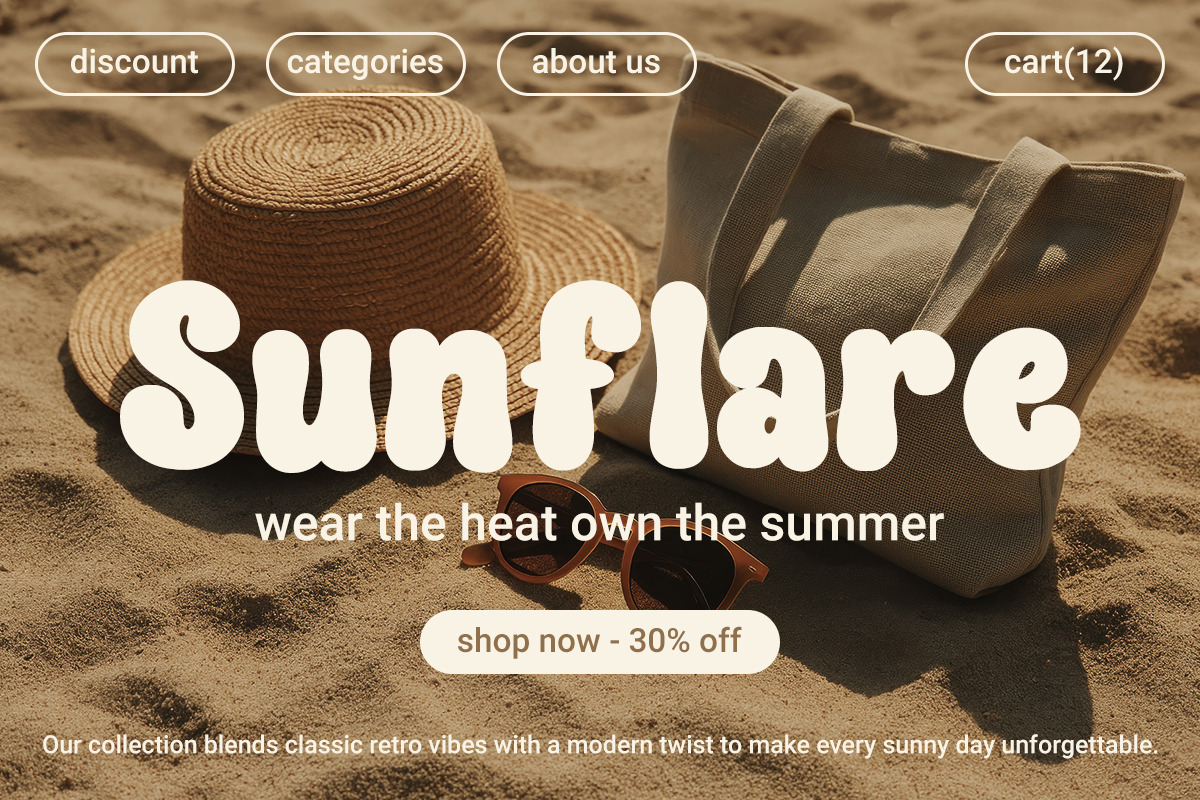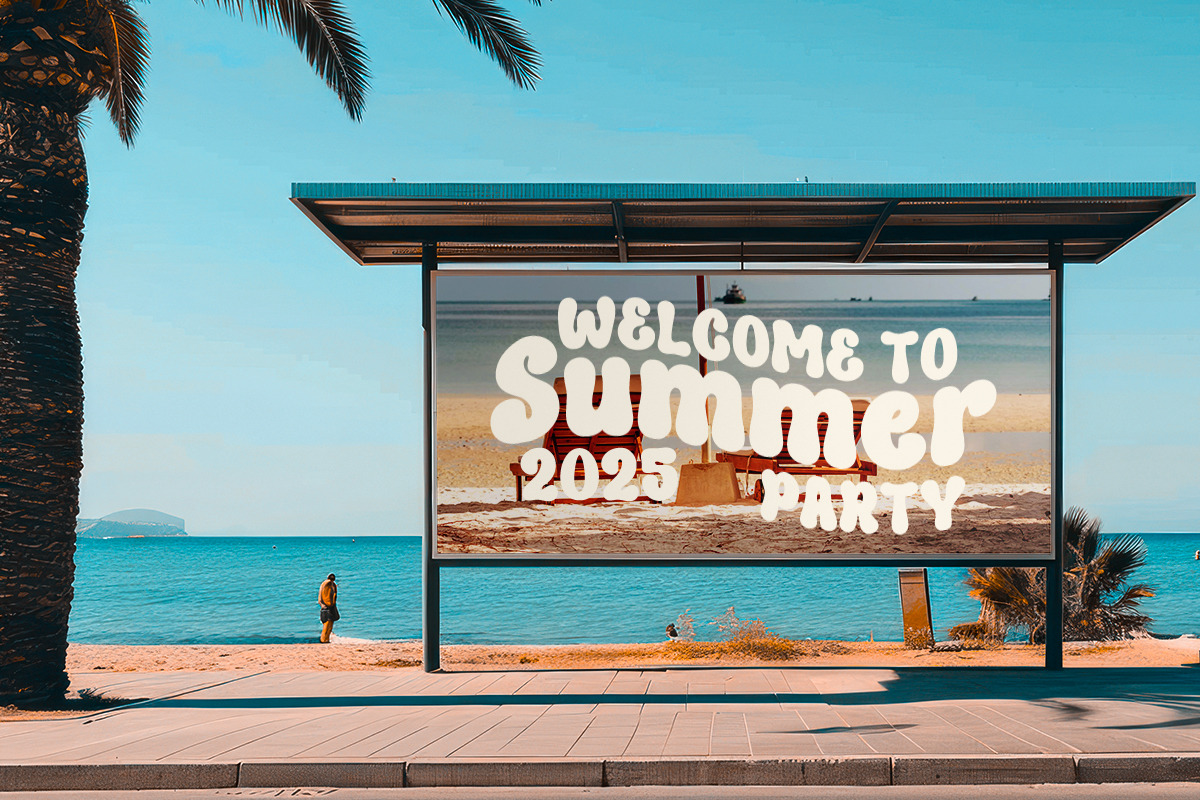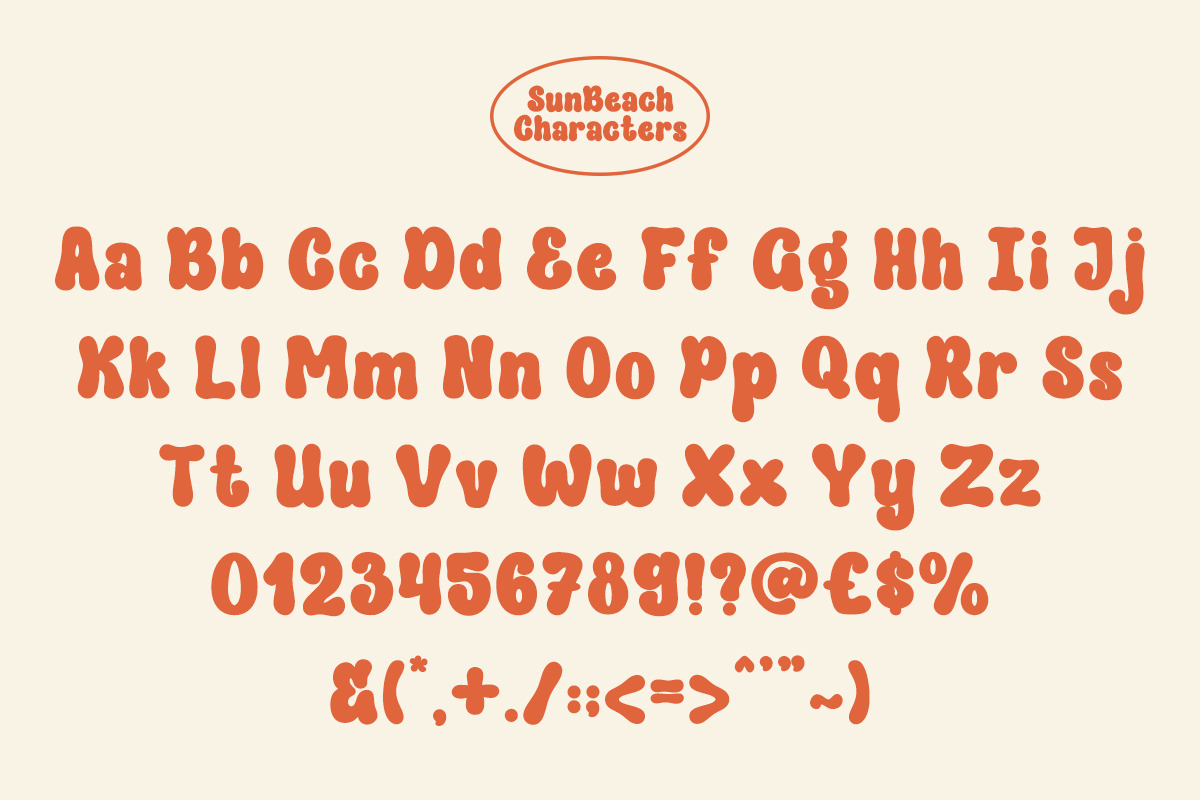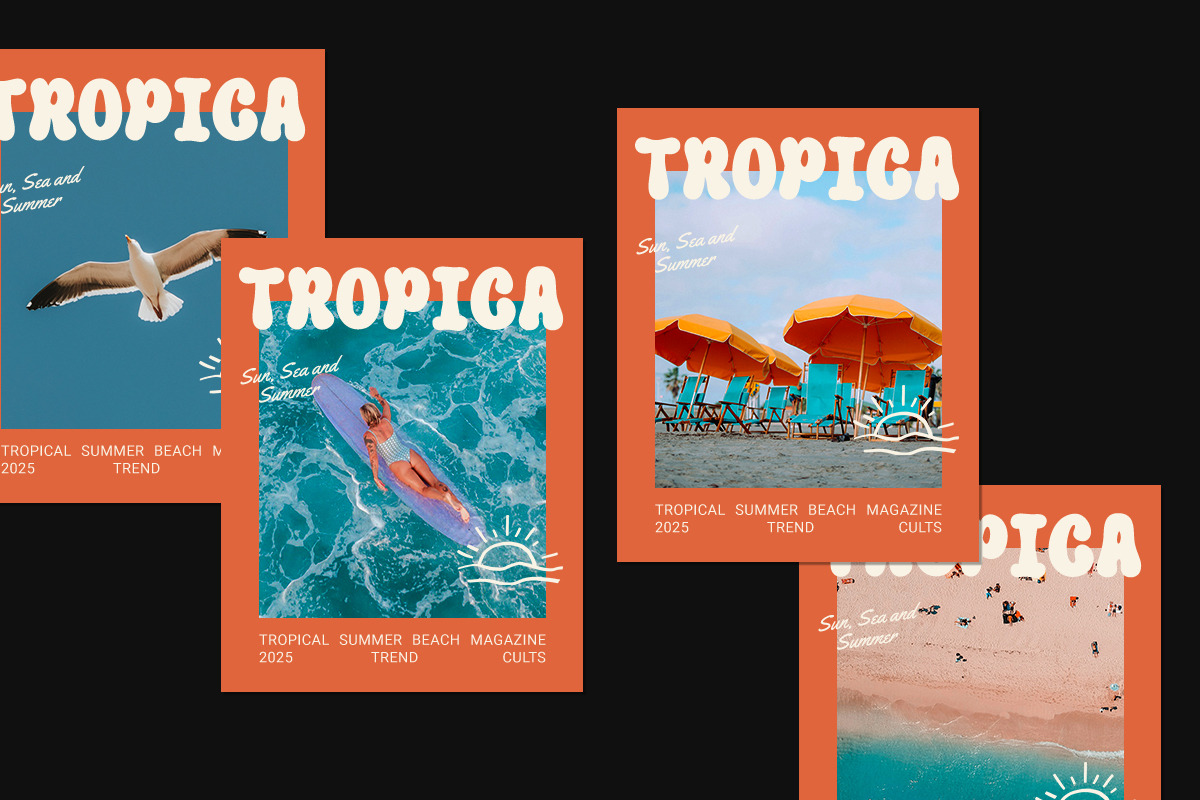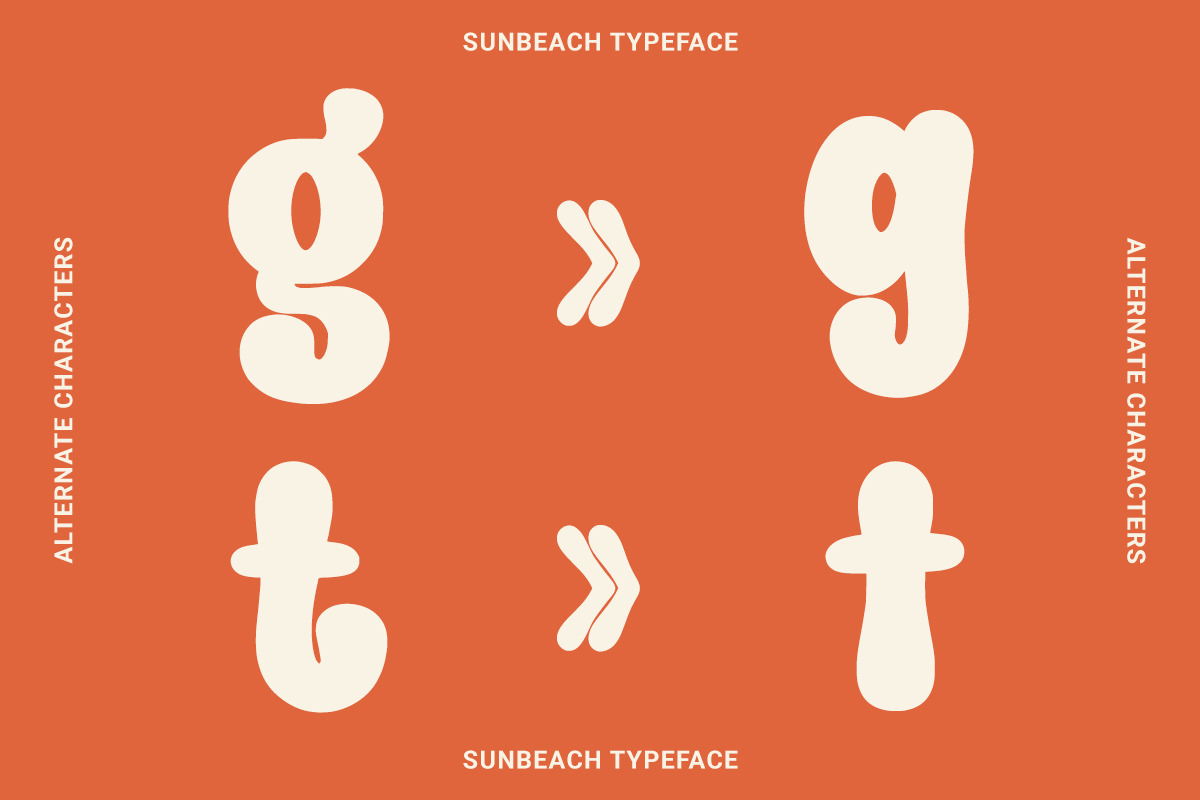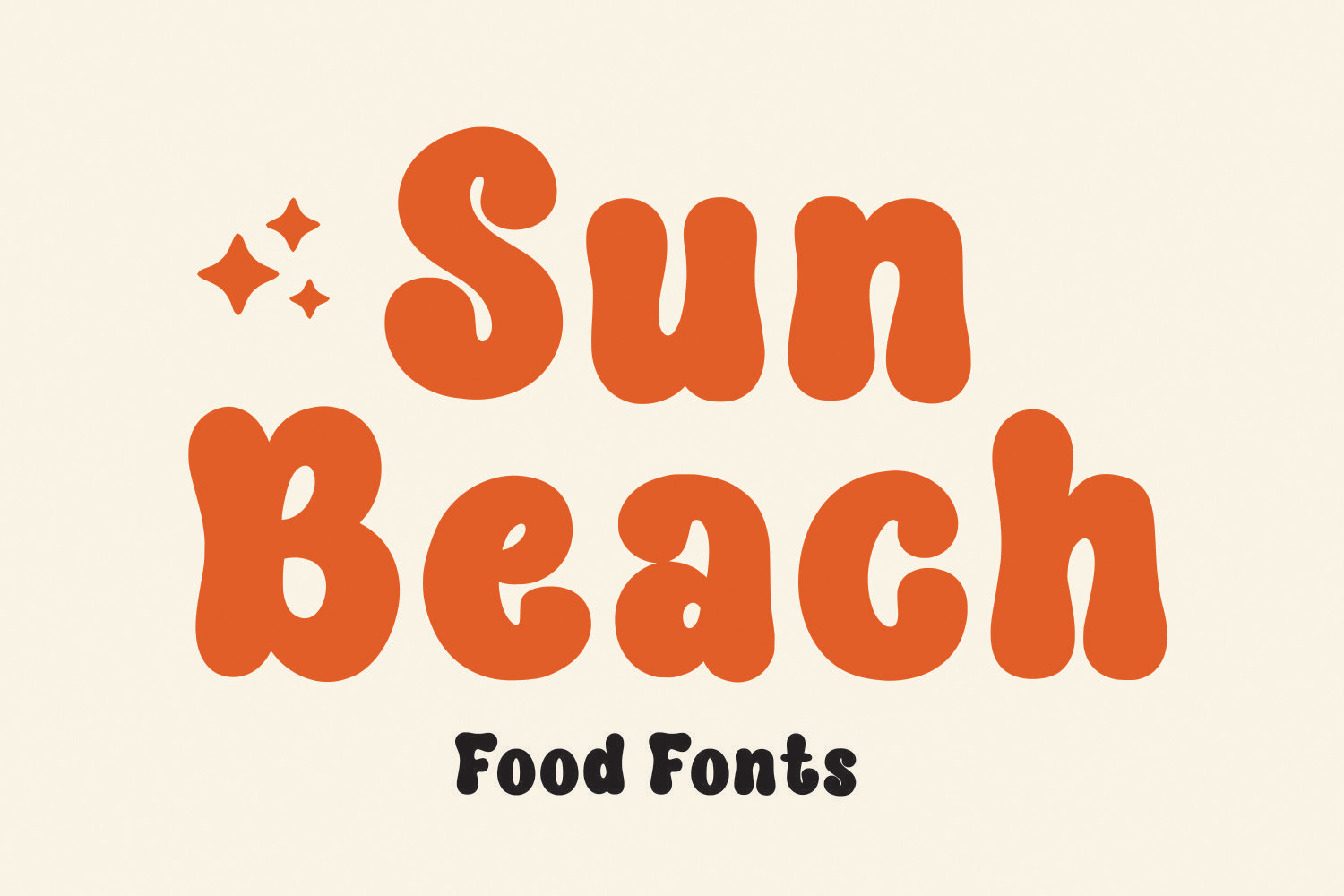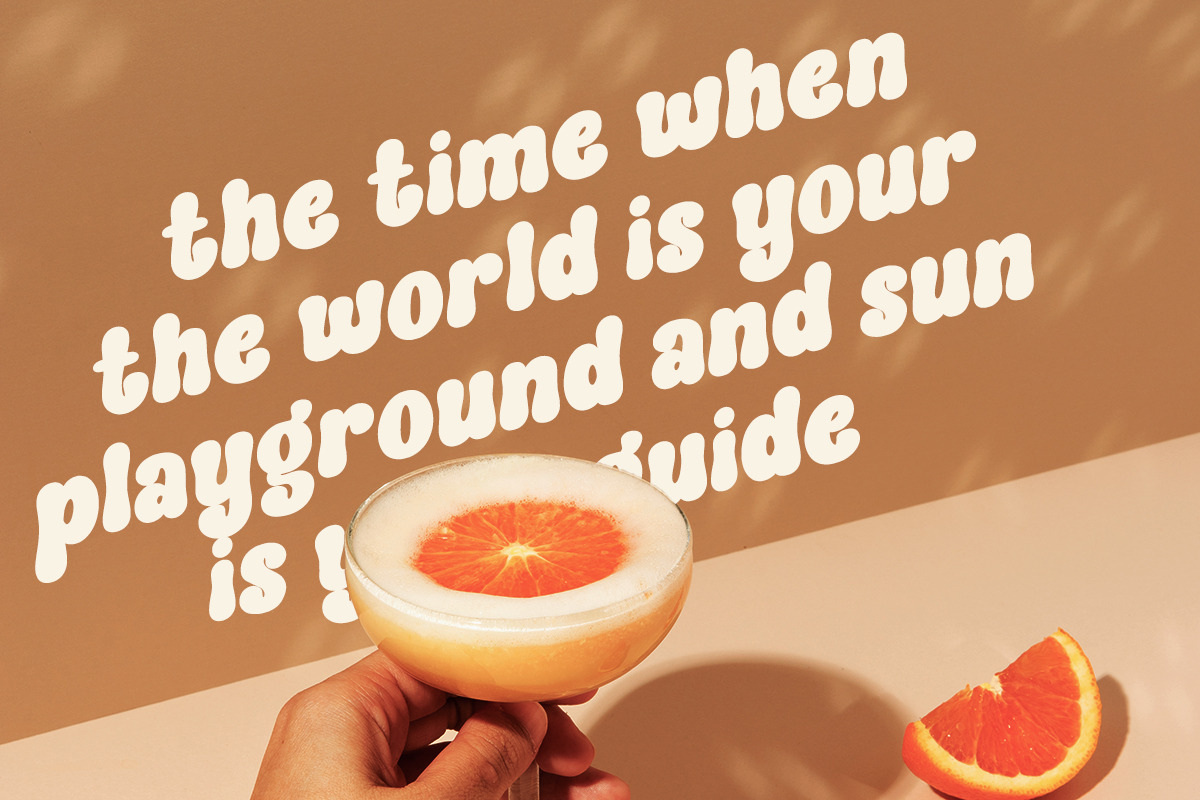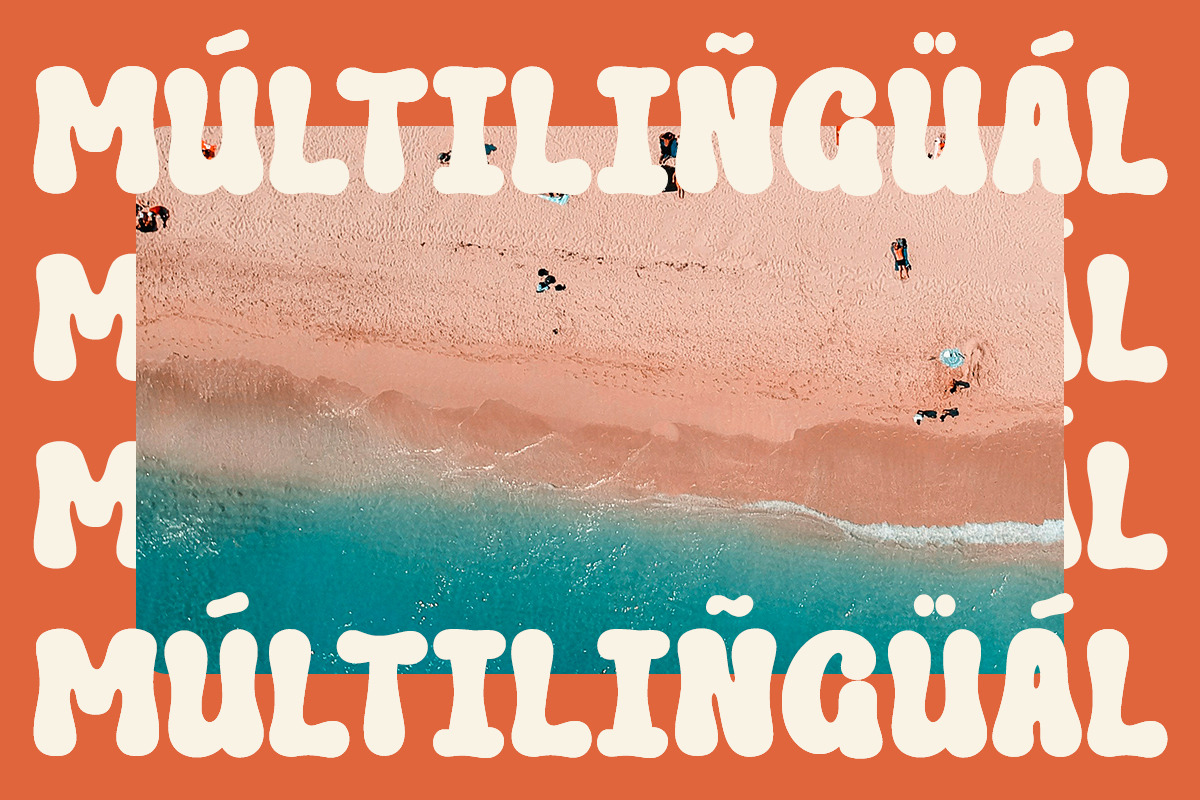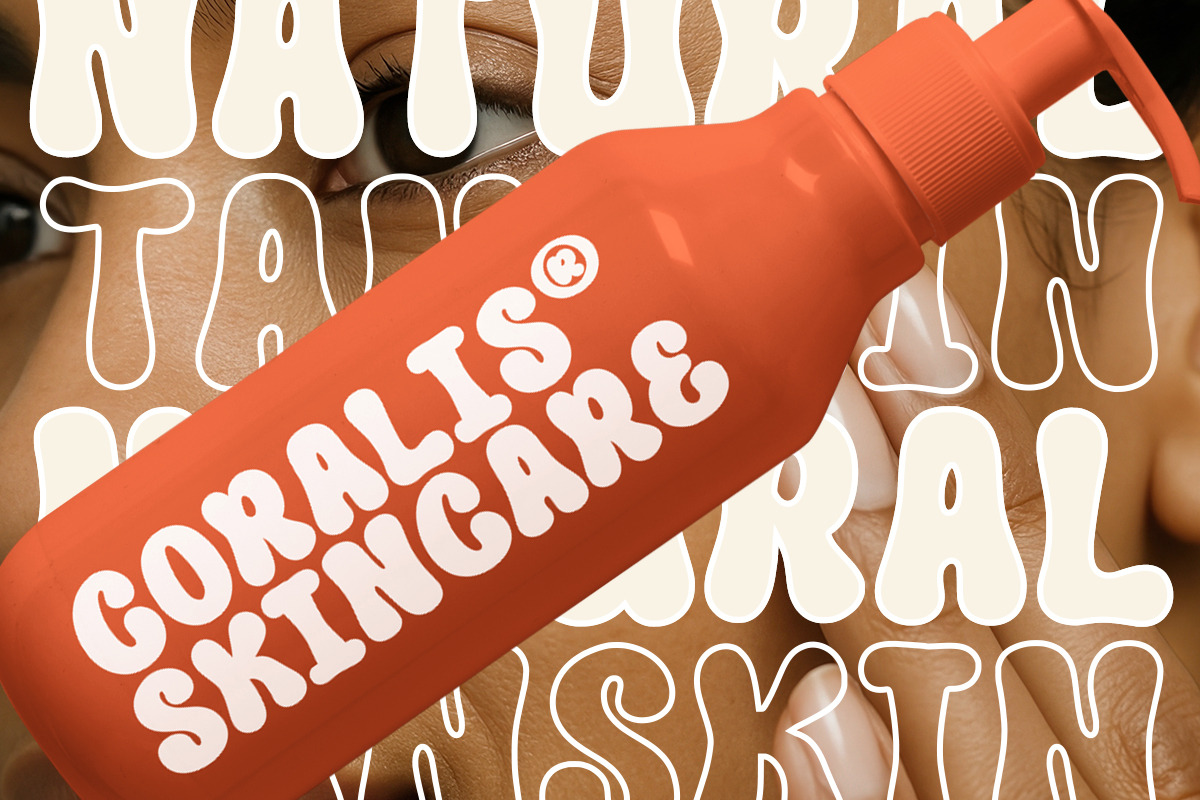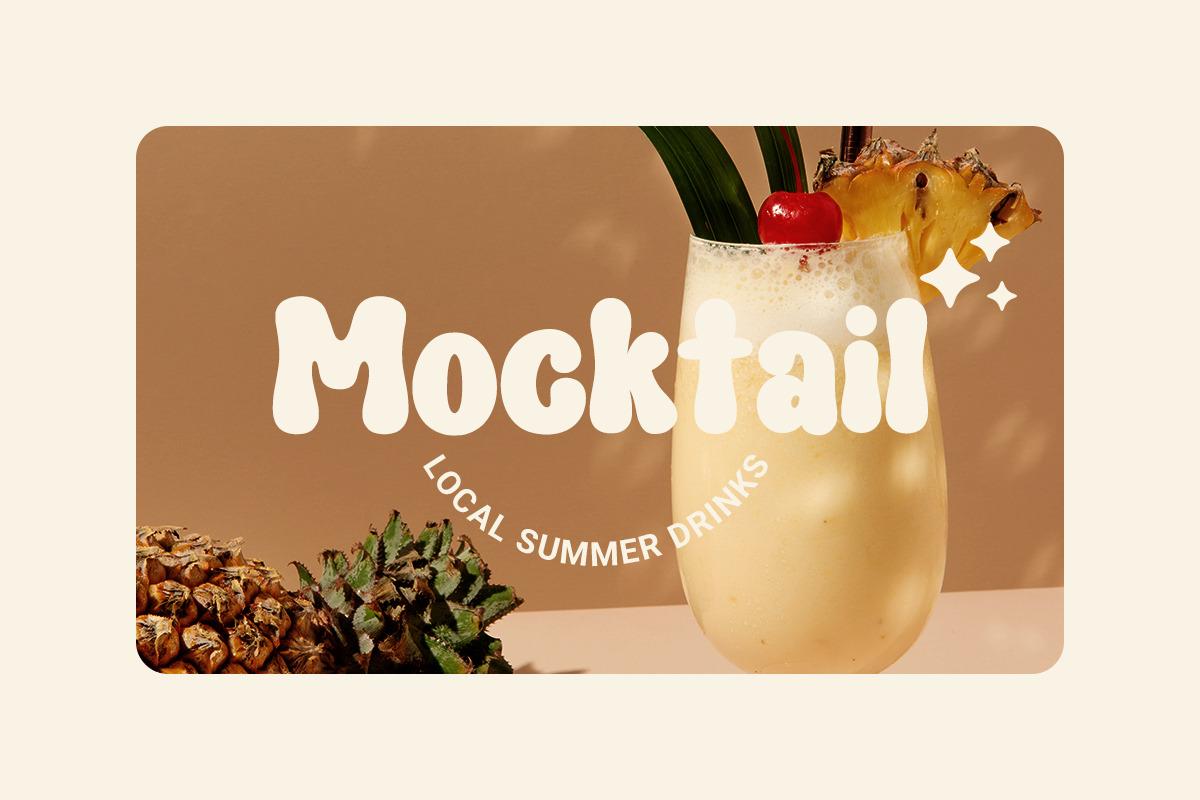
SunBeach - Food Font
SunBeach – Funny Handwritten Font is a whimsical and bold handwritten font that brings humor, energy, and playfulness to any design. With its lively curves and expressive strokes, this font radiates sunshine and fun, making it perfect for cheerful and creative projects.
Its bold handwritten style adds a spontaneous and joyful character that stands out in branding, logos, packaging, magazines, and social media graphics. Every letter feels dynamic and full of personality, capturing the carefree spirit of summer days and happy moments.
SunBeach works beautifully for Cricut crafts, Procreate lettering, and Canva projects. Whether used for quotes, posters, greeting cards, or creative branding, it adds a vibrant touch that instantly lifts the mood.
Playful yet confident, SunBeach combines cuteness with modern versatility, making it ideal for fun and friendly visual identities. Bring a splash of sunshine to your designs with SunBeach – Funny Handwritten Font. Perfect for projects that celebrate creativity, laughter, and a bright, carefree vibe.
- Standard & Multilingual glyphs.